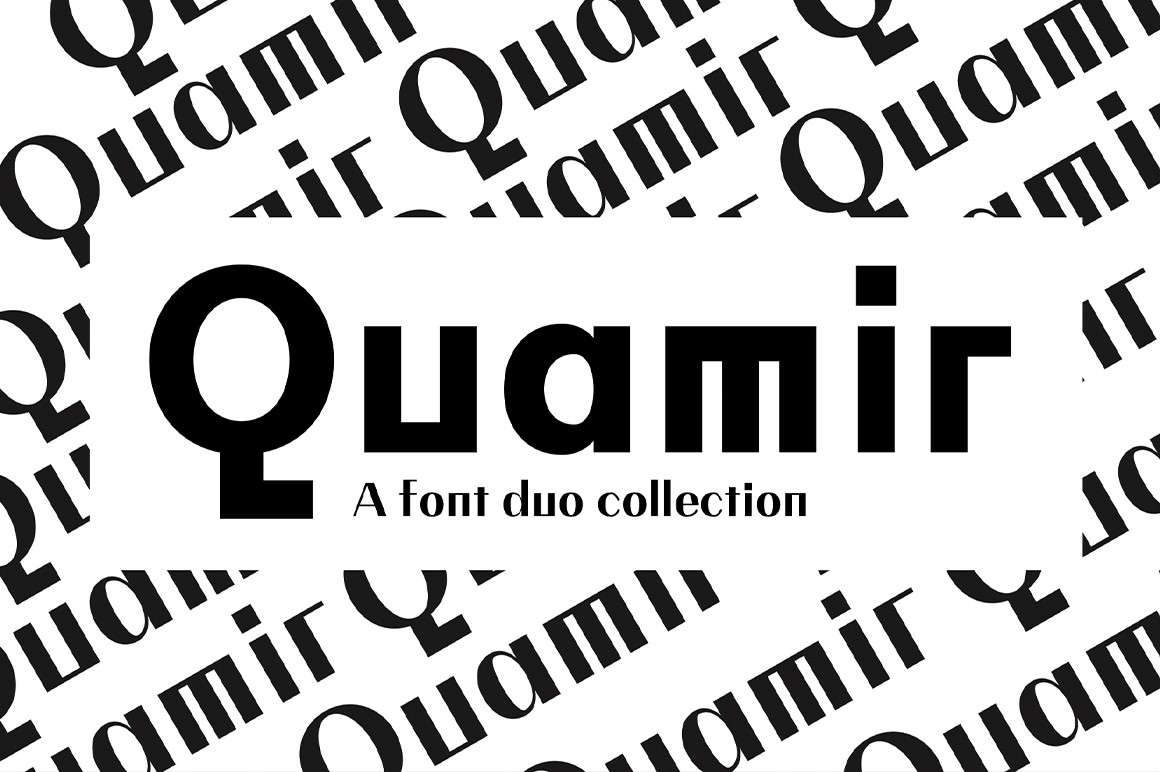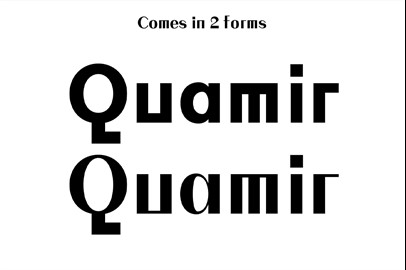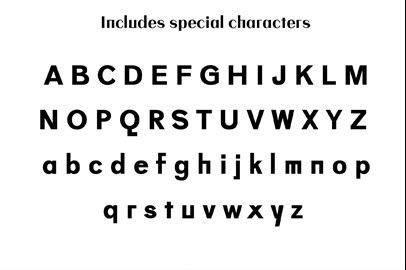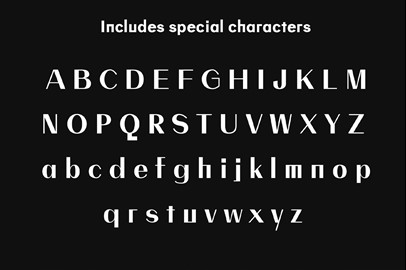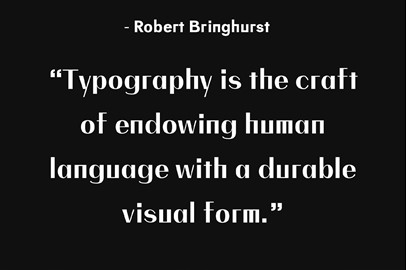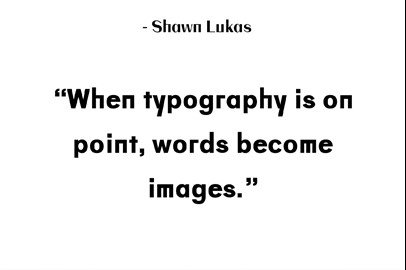
QUAMIR Typeface: A Display Font Duo
A unique typeface.
Quamir
is a modern font duo which has strong features and comes in two forms: With contrast and without contrast. They work together to give you that perfect combination for your latest project. Quamir is perfect for logos, signage, advertising, labels and more.